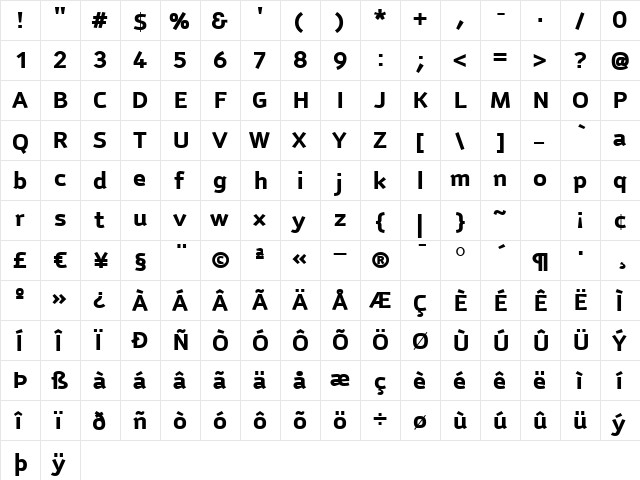
Anomoly Bold Font Preview
Anomoly Bold
Anomoly Bold Font Details
Design Context for Anomoly Typeface
Anomoly is a composed and adaptable typeface that performs quietly and consistently across a wide range of design contexts. The heavy weight commands attention and anchors typographic hierarchies.